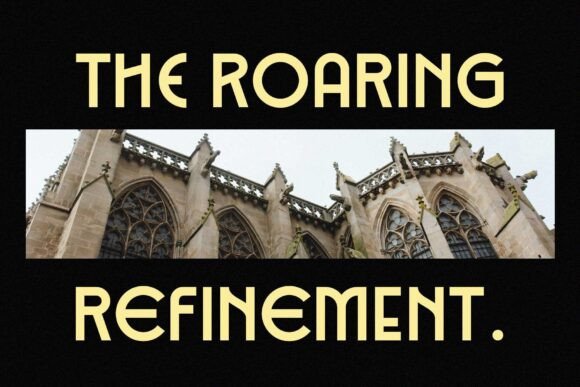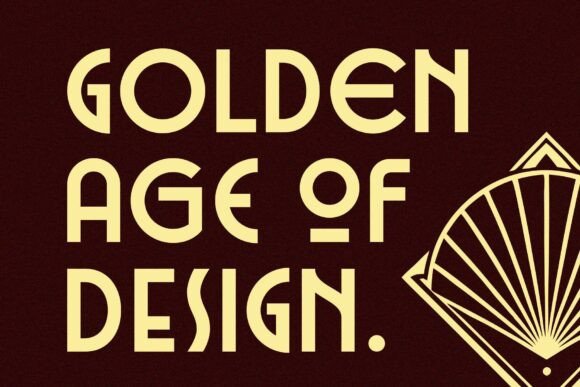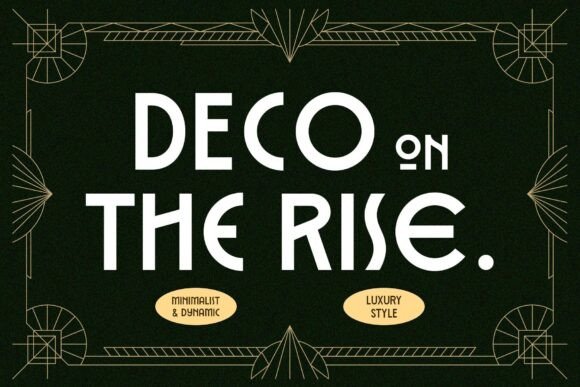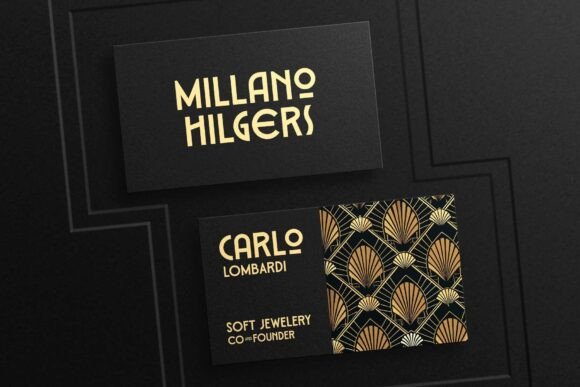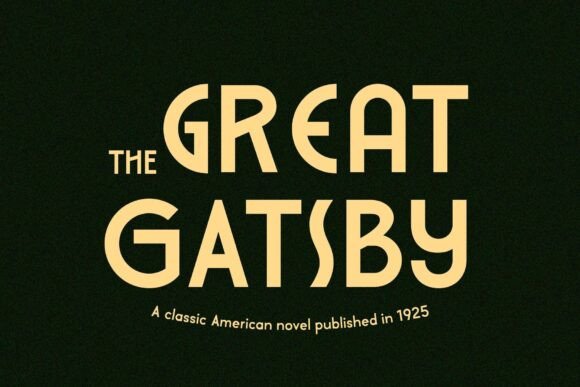
Introduction to Metrovan Font
Have you ever found yourself staring at a blank canvas, searching for the perfect font to elevate your creative project to new heights? As a designer, you know how crucial the right typography can be in conveying your message and setting the tone for your audience. That’s where Metrovan Font comes in – a stunning Art Deco typeface that exudes luxury and sophistication, perfect for designs requiring an exclusive and minimalist feel.
With its roots in the 1920s, Metrovan Font is a design resource that will transport your audience to an era of opulence and refinement. Whether you’re working on a high-end branding project or a creative campaign that demands attention, this versatile font is sure to make a statement. And the best part? Metrovan Font is available for free download, allowing you to incorporate its elegance into your next project without breaking the bank.
From posters to presentations, Metrovan Font is the perfect addition to any design project that requires a touch of glamour and sophistication. Its high-quality design and transparent background make it easy to use and customize, allowing you to create dynamic and creative typography combinations that will leave a lasting impression on your audience.
Key Features of Metrovan Font
- High-quality font design suitable for various creative projects, including graphic design and digital art.
- Comes with a transparent background, allowing for seamless integration into different design elements.
- Features a clean and modern design aesthetic, perfect for contemporary design projects.
Honest Review: Metrovan Font
I recently had the chance to work with the Metrovan Font in a creative project, and I must say it’s been a great addition to my design resource arsenal. The font is free to download, which is always a plus in my book.
One of the things that works well with the Metrovan Font is its modern and sleek aesthetic. The clean lines and minimalist design make it perfect for creating a professional and sophisticated look in any project.
- ✨ High quality and crisp design
- ✨ Suitable for a wide range of creative projects
- ✨ Transparent background, making it easy to work with
That being said, there are a few limitations to keep in mind. For example, the font doesn’t come with a lot of character variations, which may limit its use in certain projects.
- ⚠️ Limited character variations
- ⚠️ May not be suitable for projects that require a lot of bold or italic text
Overall, I’m really impressed with the Metrovan Font. It’s a great design resource that’s easy to work with and adds a touch of sophistication to any project. I’d definitely recommend it to anyone looking for a high-quality, modern font.
Common Use Cases for Metrovan Font
The Metrovan Font is suitable for a variety of design projects, including business cards, brochures, and social media graphics. Its modern and sleek design makes it perfect for creative projects that require a high-quality and professional look.